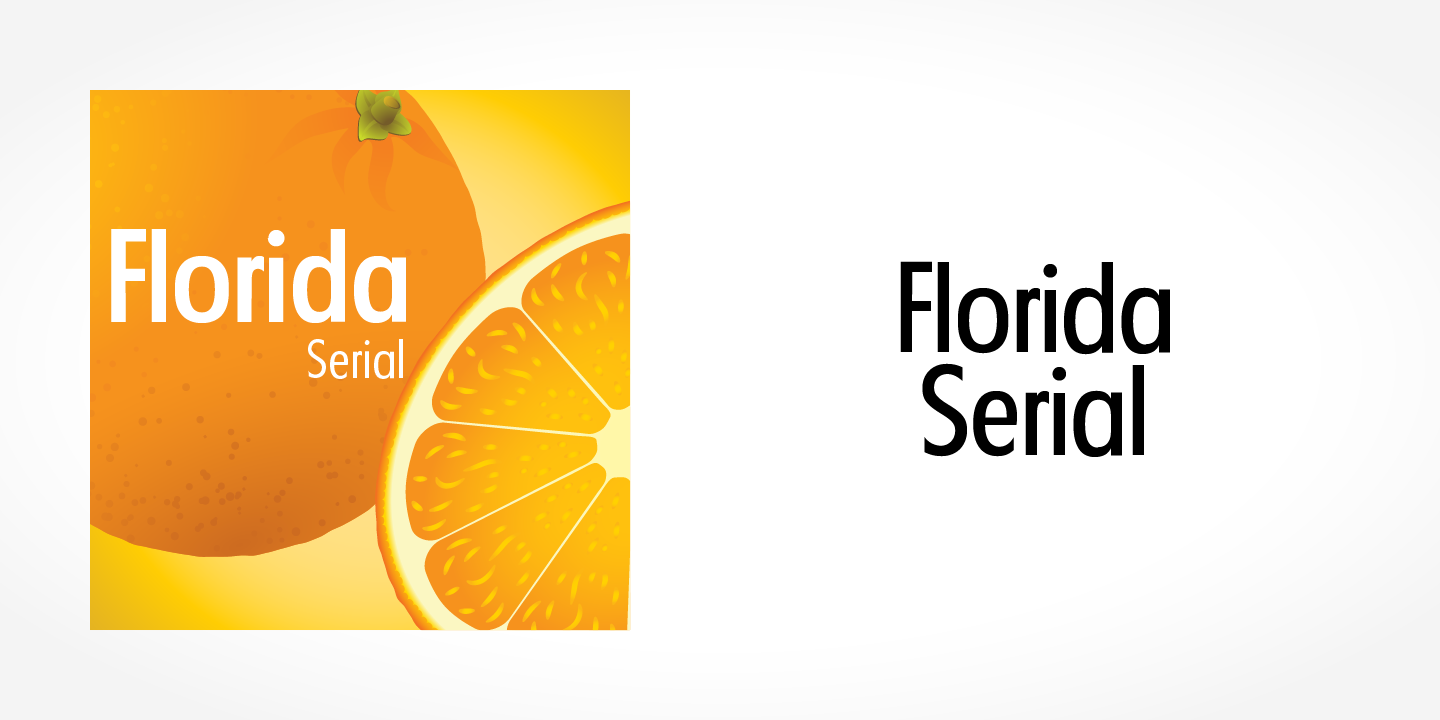
Florida Serial Font Free Download – A modern geometric sans-serif with a retro-futuristic twist, perfect for cutting-edge designs. Commercial use requires licensing, but you can download it for free to test its versatility.
Where to Use Florida Serial Font?
This ultra-versatile typeface works brilliantly for:
• Tech startups & AI branding
• Retro-futuristic logos & packaging
• Editorial headlines & magazine layouts
• Web3 & crypto project visuals
• Sci-fi gaming interfaces
Why Florida Serial Font Stands Out
Blending 80s retro charm with contemporary minimalism, Florida Serial delivers:
→ Perfectly balanced geometric letterforms
→ Subtle rounded terminals for warmth
→ Excellent readability at any size
→ A distinctive "digital meets vintage" aesthetic
Complete Florida Serial Font Family
Includes 7 weights from Thin to Black with:
Matching italics for each weight
Alternate glyphs for key characters
Special stylistic set for numerals
Extended Latin language support
✓ 650+ glyphs per weight
✓ OpenType features for advanced typography
✓ Perfect for both digital and print media